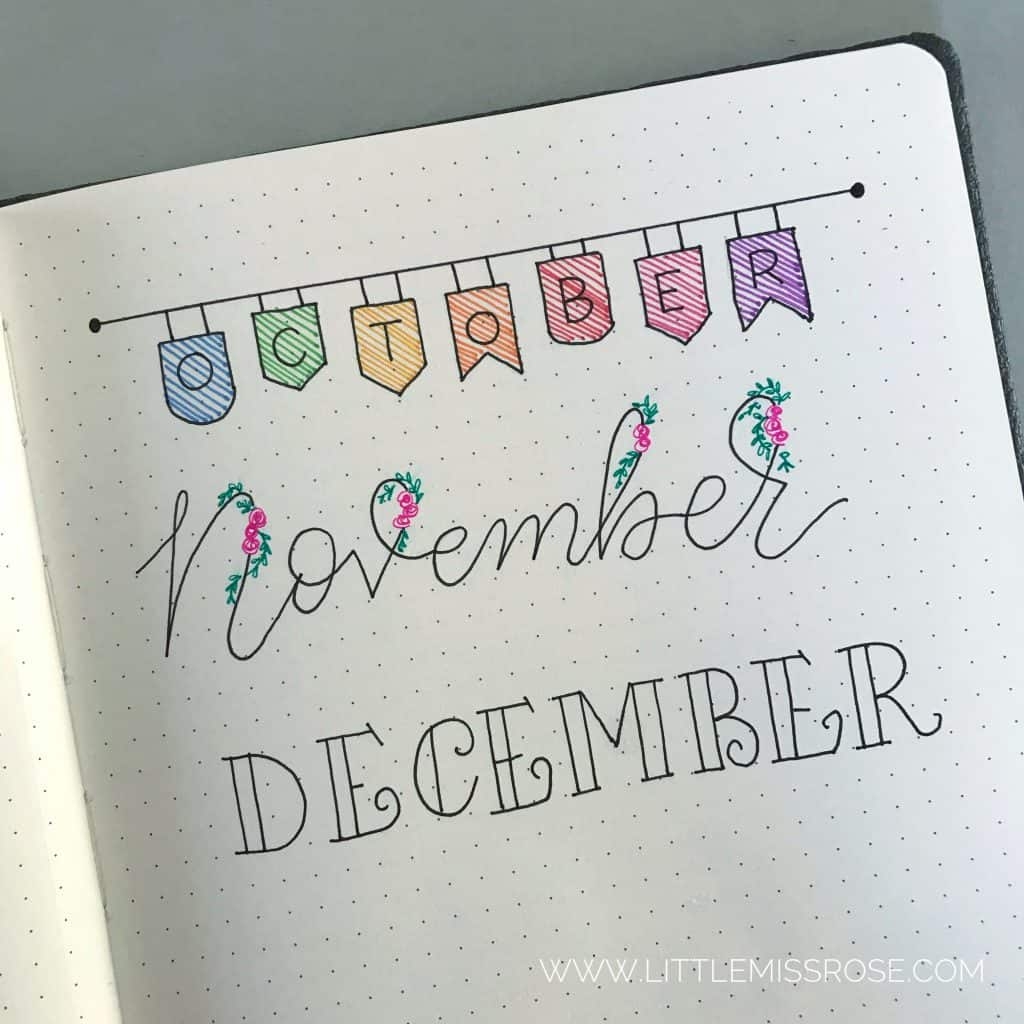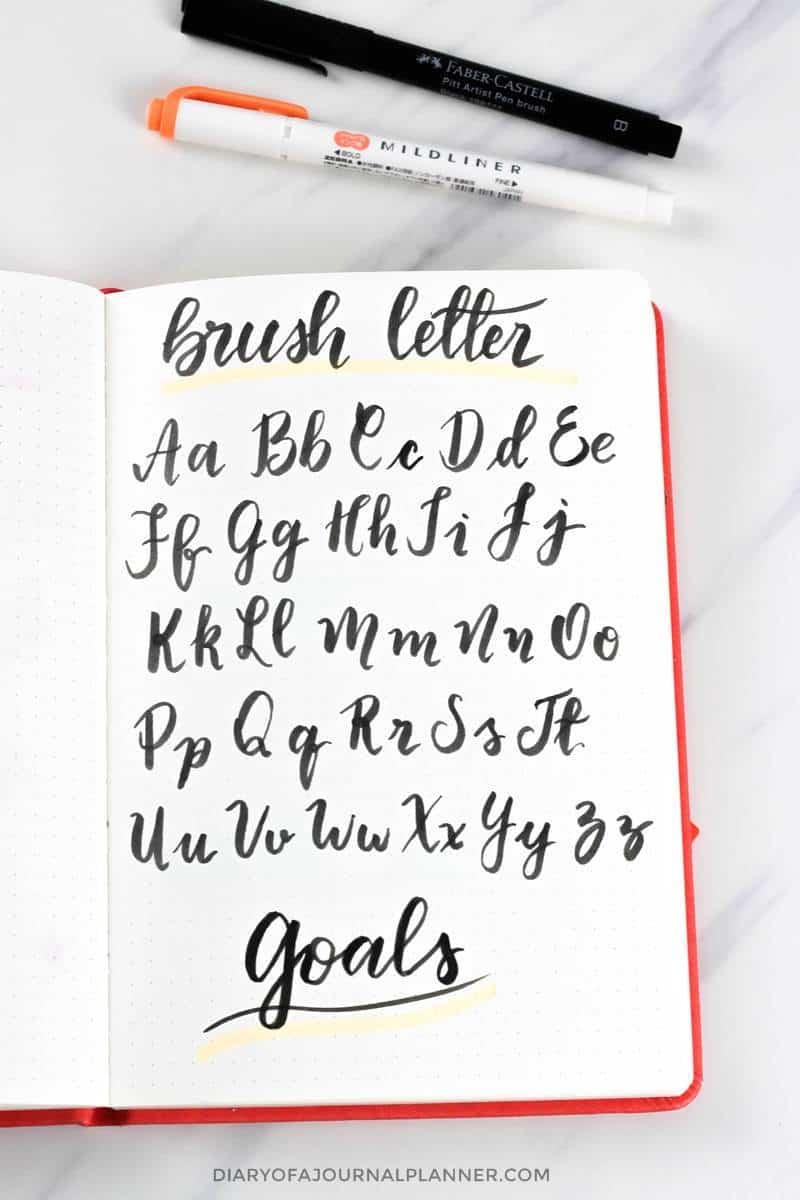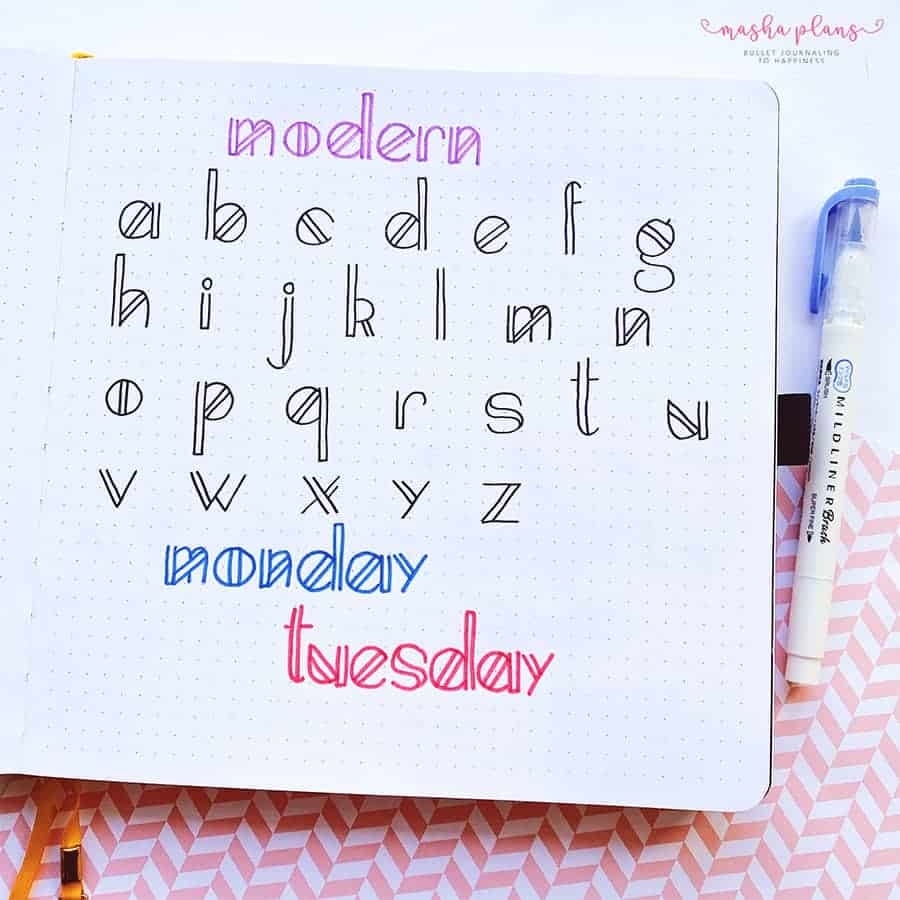
Are you looking to add some flair to your bullet journal? Fonts can be a fun and creative way to make your journal stand out. Whether you’re a seasoned bullet journalist or just starting out, experimenting with different fonts can add a personal touch to your pages.
Choosing the right fonts for bullet journaling can be a daunting task with so many options out there. From elegant calligraphy to playful doodles, the possibilities are endless. Finding the perfect font that matches your style and the overall theme of your journal can help you express yourself and stay organized in a unique way.
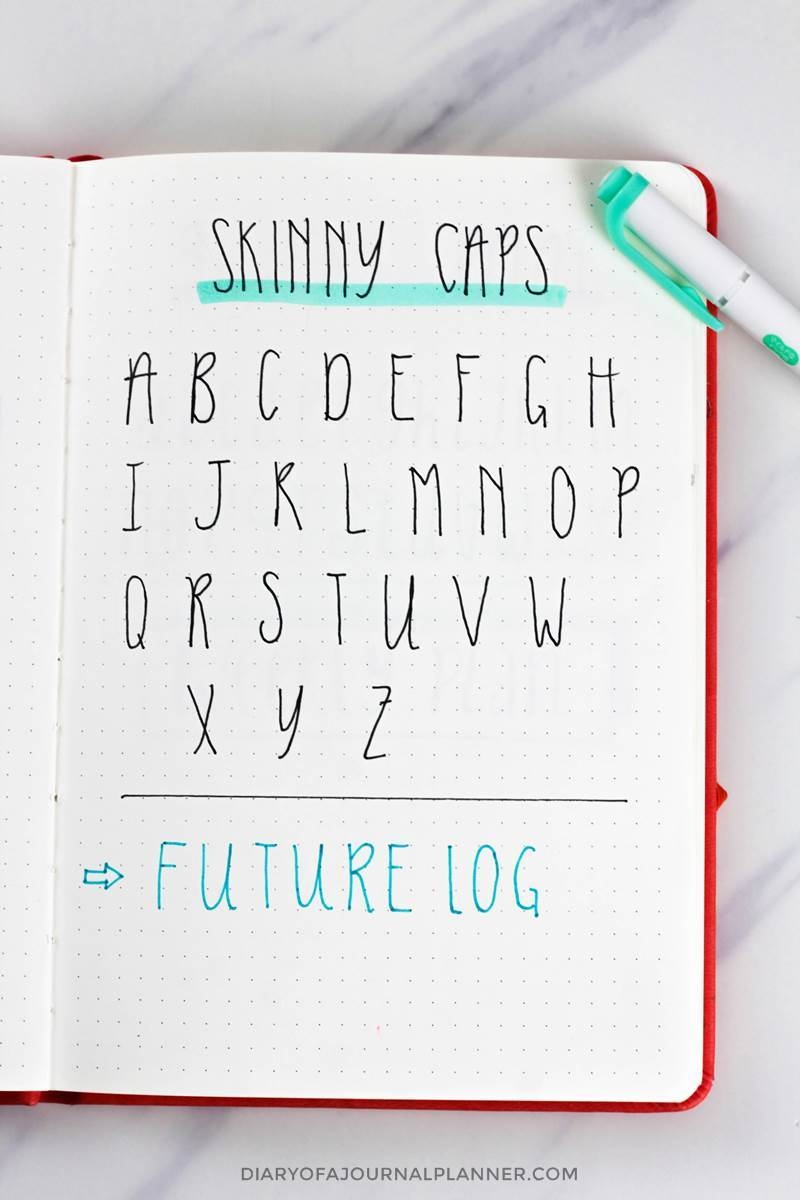
Fonts for Bullet Journaling: Adding Personality to Your Pages
One popular font choice for bullet journaling is the classic serif font. Its timeless and sophisticated appeal can give your journal a polished look. On the other hand, a whimsical handwritten font can add a touch of charm and playfulness to your pages.
For a more modern and clean aesthetic, sans-serif fonts are a great option. They are easy to read and can give your journal a sleek and minimalist feel. Don’t be afraid to mix and match different fonts to create visual interest and hierarchy on your pages.
Remember, the key to successful font pairing is balance and consistency. Choose fonts that complement each other and maintain a cohesive look throughout your journal. So go ahead, explore different fonts, and let your creativity flow on the pages of your bullet journal!
Experimenting with fonts is a great way to personalize your bullet journal and make it truly your own. Whether you prefer elegant scripts or quirky doodles, there’s a font out there that will speak to your unique style. So grab your favorite pens and get ready to have some fun with fonts in your bullet journal!